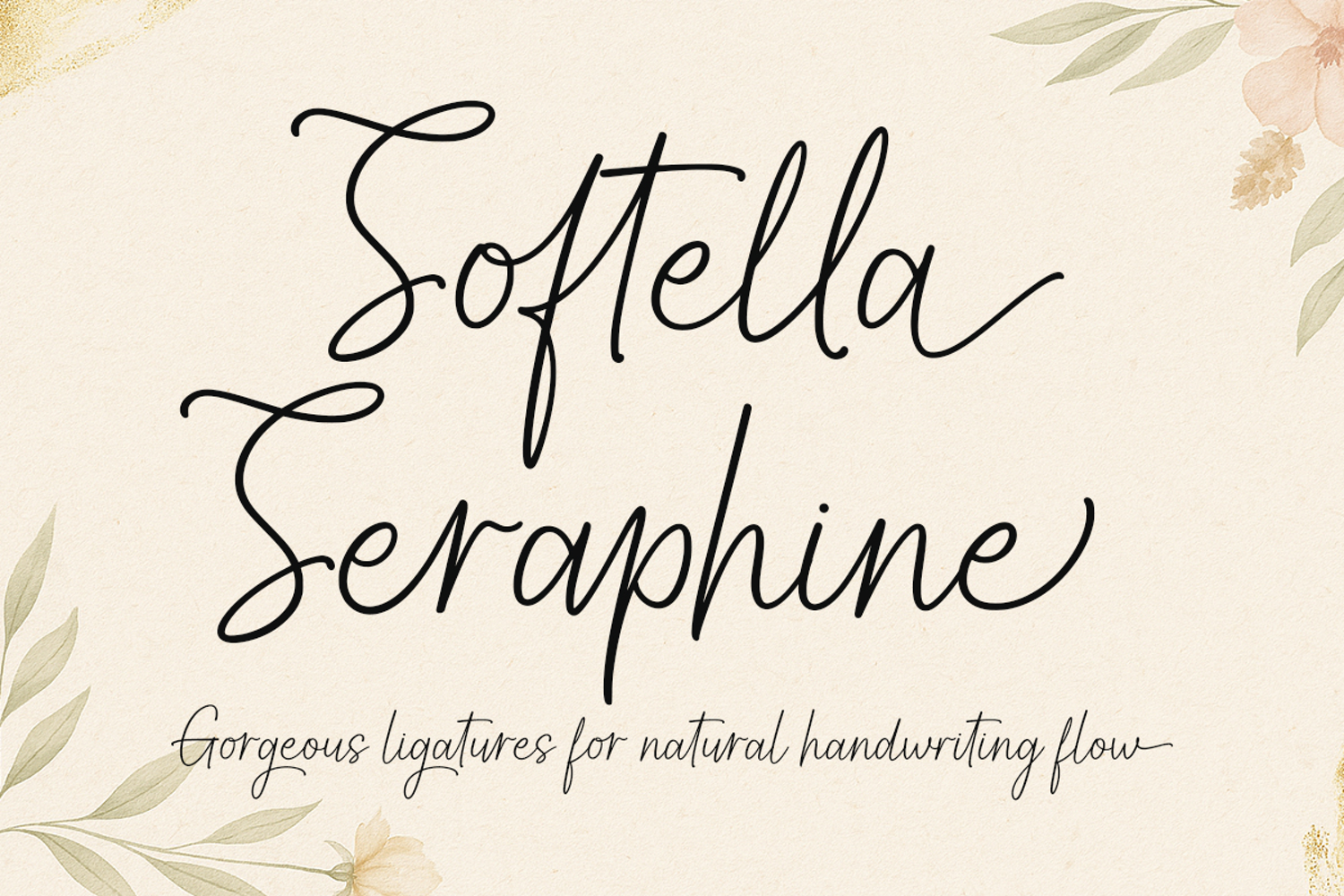
Softella Seraphine - Elegant Signature Script Font
Capture elegance in every stroke with Softella Seraphine!
Softella Seraphine is a stunning signature script font that flows with natural grace. Designed to look like authentic handwriting, this font features beautiful swashes and a sophisticated style that’s perfect for high-end branding.
Whether you’re creating a professional watermark, elegant wedding invitations, or chic social media quotes, Softella Seraphine adds a touch of class and personality to your work.
• Natural Handwriting Style
• Beautiful Beginning & Ending Swashes
Perfect for: Photography Watermarks, Branding, Logos, Wedding Stationery, and Invitations.